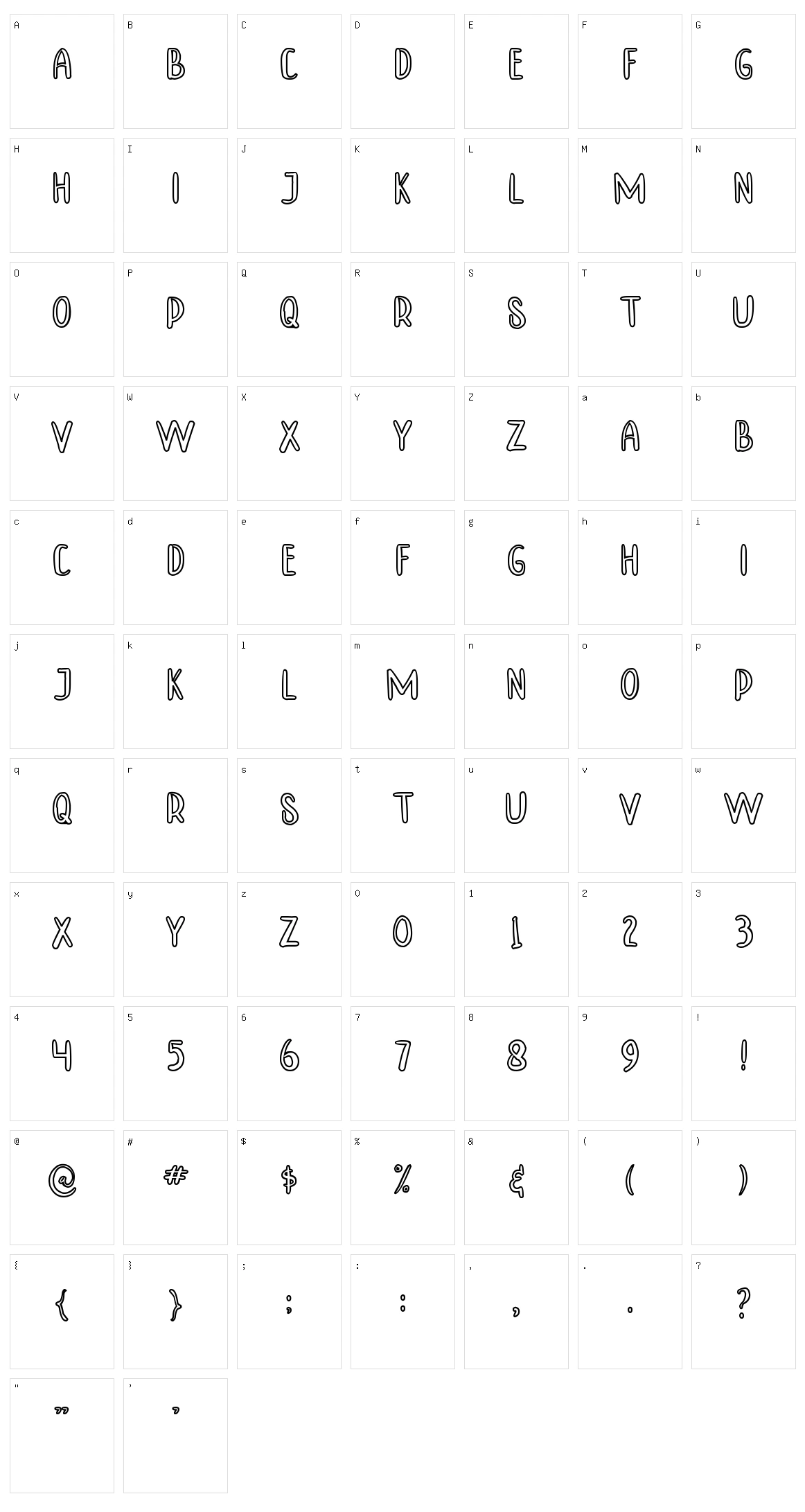
The free font Tinny Hurry is carefully designed by MJB Letters, showcasing a thoughtful balance of creativity and usability and falls under the Cartoon font style. When you download the ZIP file, it contains only 14.75 KB of font files, making it lightweight and quick to download. Please review the license details below to understand permitted usage and distribution rights. If license information is not available, we recommend using this font for personal projects only or contacting the author directly for commercial usage permissions.